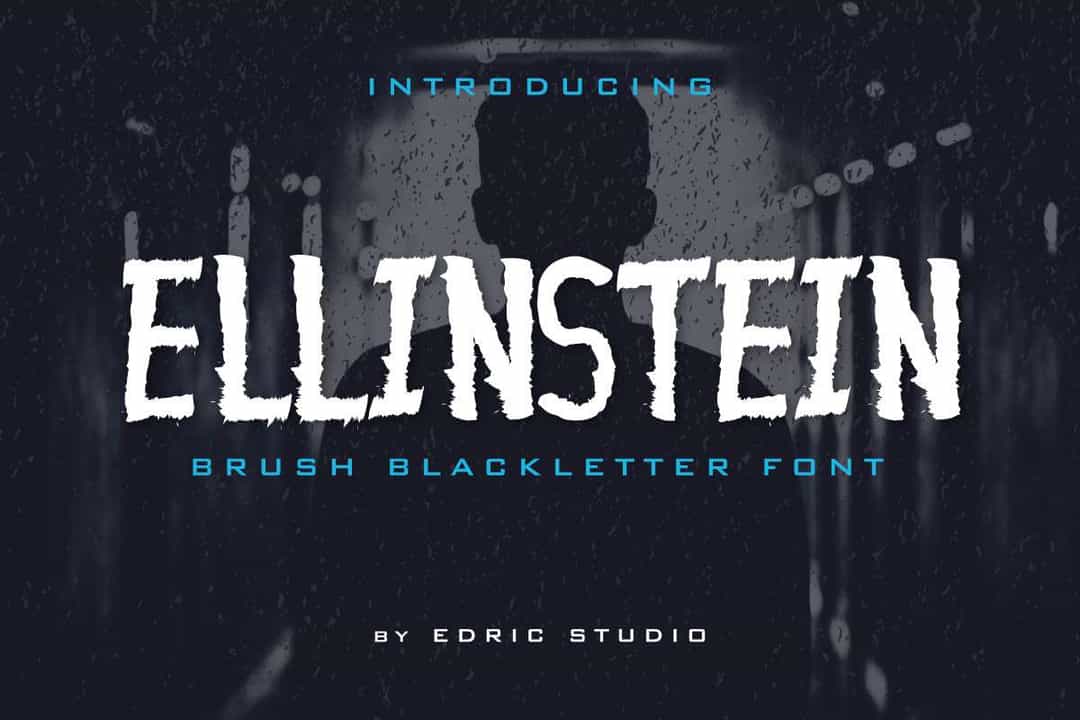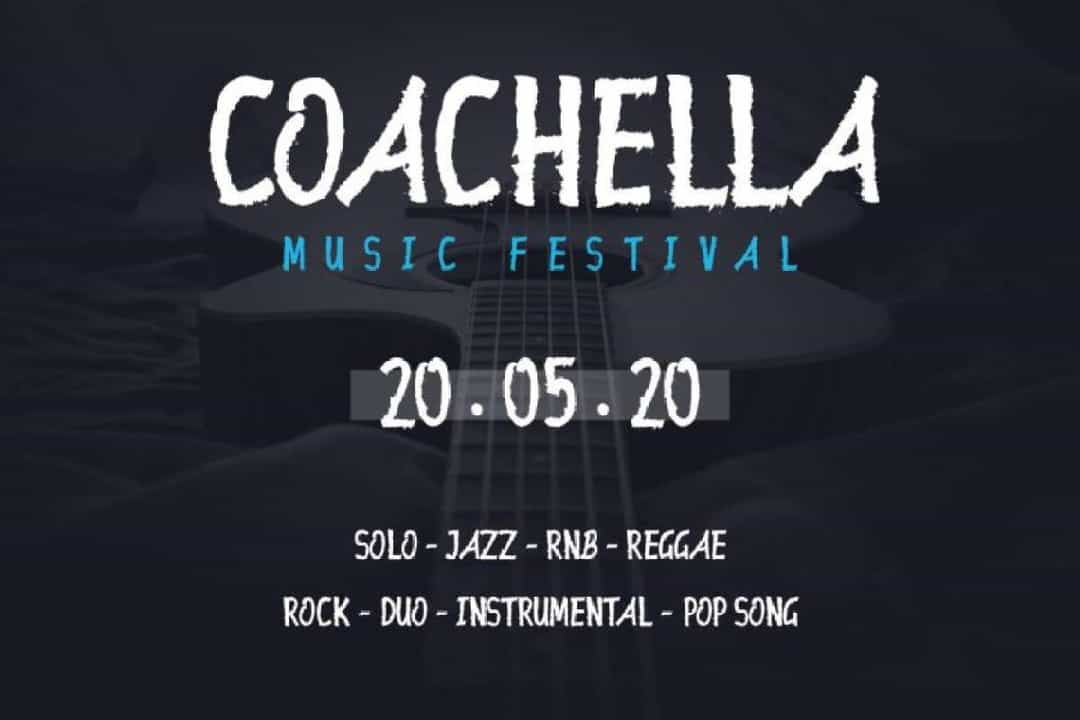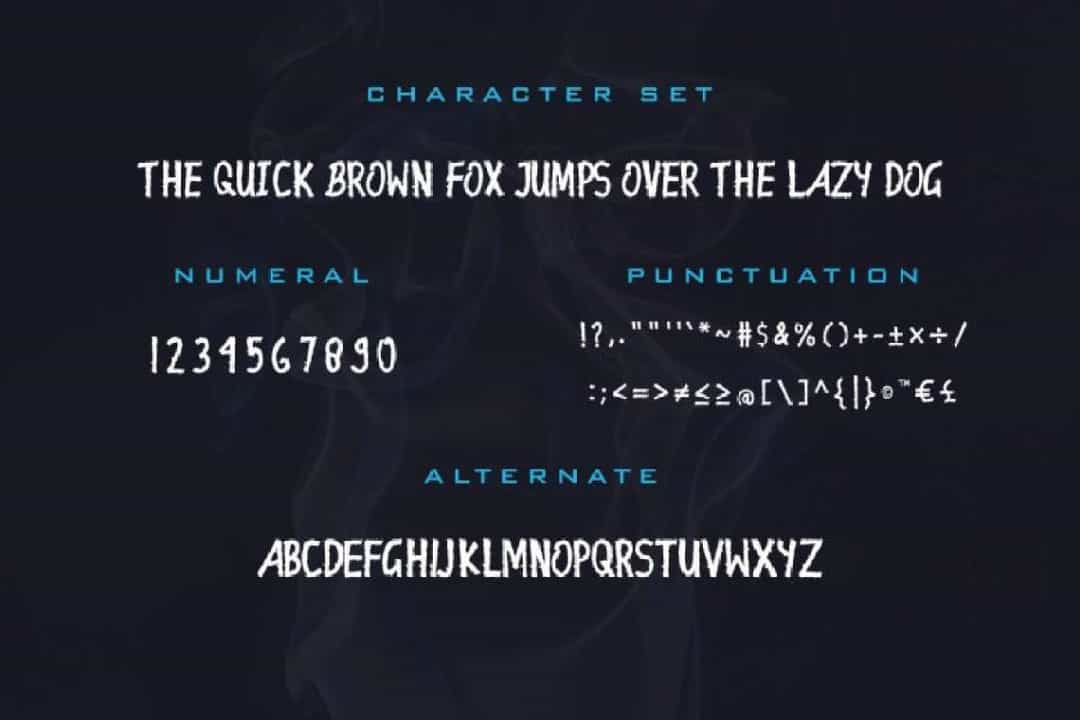
The Ellinstein font is a one of a kind rough decorative display typeface with a inky brush style. This font has a good characters set, precisely arranged with good spacing and kerning. The theme style of this font is horror, vintage, movies, music and wet brush black-lettered style. You will not be able to find it anywhere else, the font like Ellinstein Font.